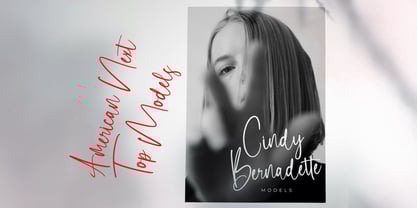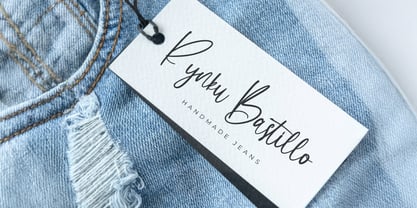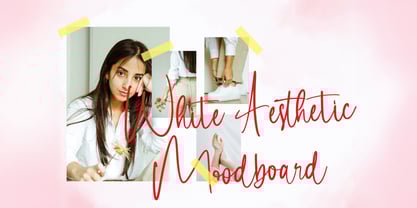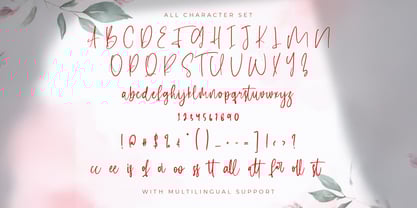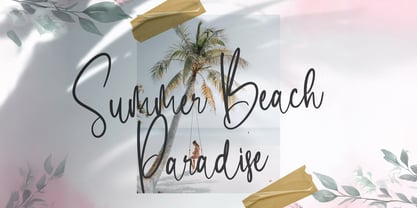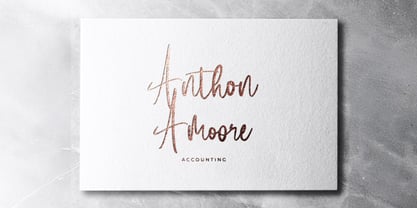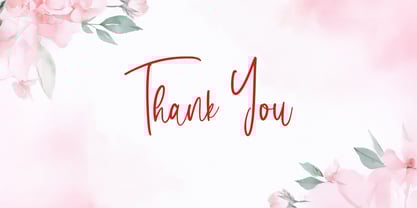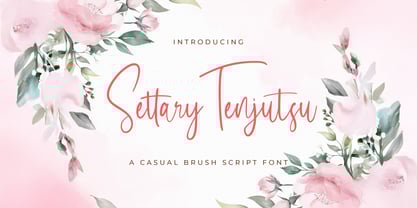
Settary Tenjutsu
by Stringlabs Creative Studio
The Settary Tenjutsu Font Family was designed by Virgiawan Listanto and published by Stringlabs Creative Studio. Settary Tenjutsu contains 1 styles. More about this family
Settary Tenjutsu is a bold handwritten font with an artistic edge and modern flow. With its dynamic strokes and fluid motion, this font adds a confident, personal touch to any design perfect for creatives who want their work to feel both authentic and stylish. Whether you're crafting branding, quotes, or social media content, Settary Tenjutsu brings attitude, energy, and handwritten charm.
Designers: Virgiawan Listanto
Foundry: Stringlabs Creative Studio